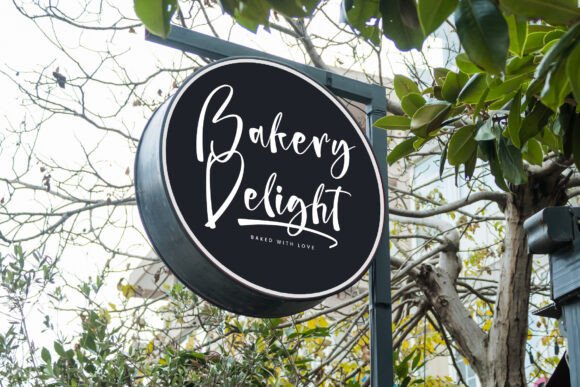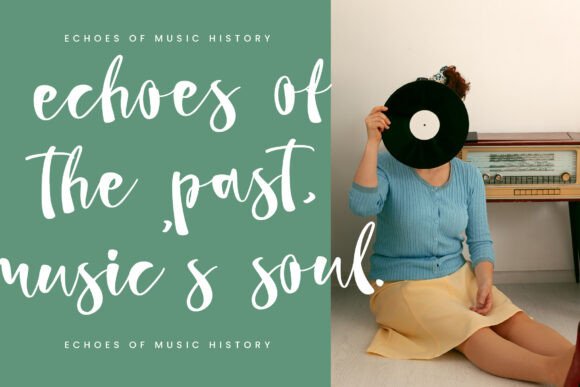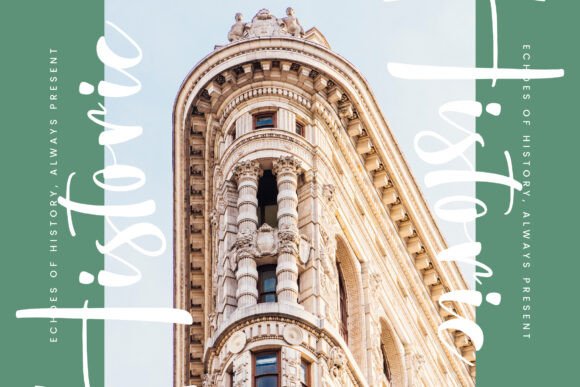
Introduction to Palm Bliss Font
Palm Bliss – A Modern Handwritten Script Font perfect for any project like: logos, branding projects, homewares designs, product packaging, mugs, quotes, posters, shopping bags, t-shirts, covers books, business cards, invitation cards, greeting cards, labels, photography, watermarks, special events and all your other luxury projects that require a premium taste.
Palm Bliss – A Modern Handwritten Script Font perfect for any project like: logos, branding projects, homewares designs, product packaging, mugs, quotes, posters, shopping bags, t-shirts, covers books
Key Features of Palm Bliss Font
Why Choose Palm Bliss Font?
Palm Bliss Font offers exceptional quality and versatility, making it a valuable addition to your design toolkit. Whether you’re creating for personal projects or commercial use, Palm Bliss Font delivers professional results.